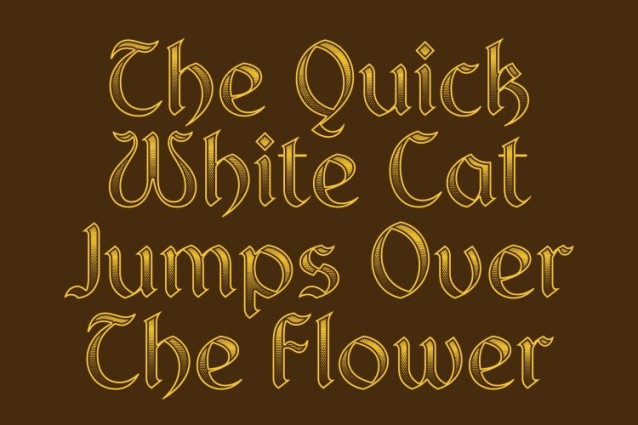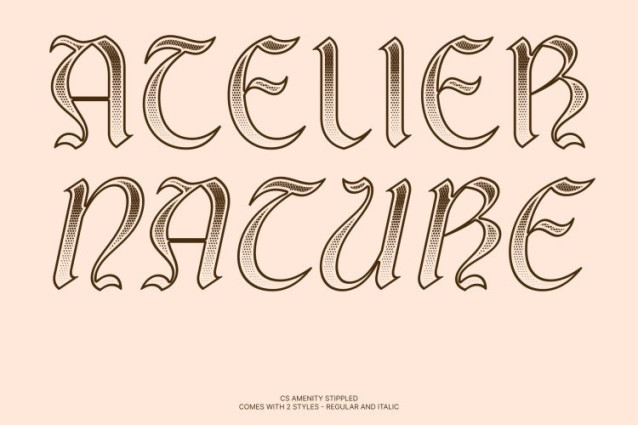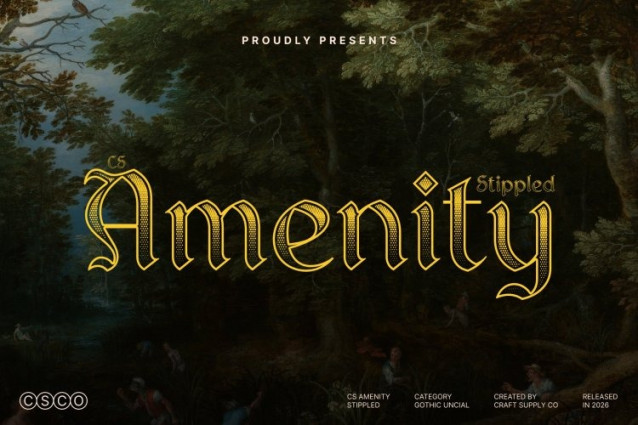
CS Amenity Stippled Font
CS Amenity Stippled Font This is a display font that seamlessly blends the flowing curves of Uncial lettering with the bold, structured presence of Gothic typography. Inspired by medieval manuscripts and historical calligraphy, it features rounded letterforms, thick strokes, and ornamental flourishes now enriched with a dense stippled texture. This dotwork treatment, reminiscent of classic ink-dot and stippling illustration techniques, adds artistic depth and a handcrafted feel, enhancing its historical authenticity while maintaining a refined, modern finish.
Mystical, Timeless, and Texturally Rich
With its intricate detailing and stippled surface, evokes the atmosphere of ancient scrolls, illuminated manuscripts, and mythological inscriptions. The dotted texture softens and enriches the bold forms, creating a mystical and timeless aesthetic that feels legendary and immersive. Its graceful yet powerful structure ensures strong visual impact while conveying elegance and narrative depth.
Ideal for Fantasy and Historical Design
This is perfectly suited for fantasy-themed branding, historical book covers, medieval-inspired posters, and mythology-related artwork. Its stippled detailing enhances the sense of age, craft, and storytelling making it especially effective for role-playing games, film titles, historical documentaries, and immersive visual narratives. Whether used for titles, decorative typography, or branding, this font brings authenticity, grandeur, and medieval atmosphere to every design.